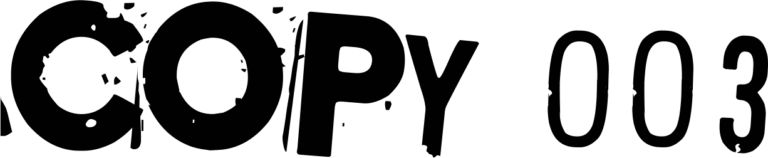
CF Punk Songwriter Font
Designed byCloutierfontes
To increase the efficiency of your content, you need to get the audience’s attention in less than a few seconds by using a dynamic font like CF Punk Songwriter. CF Punk Songwriter is a grunge punk font that does not support lowercase letters. This font conveys a sense of freshness and pleasure and is suitable for designing posters and brochures.